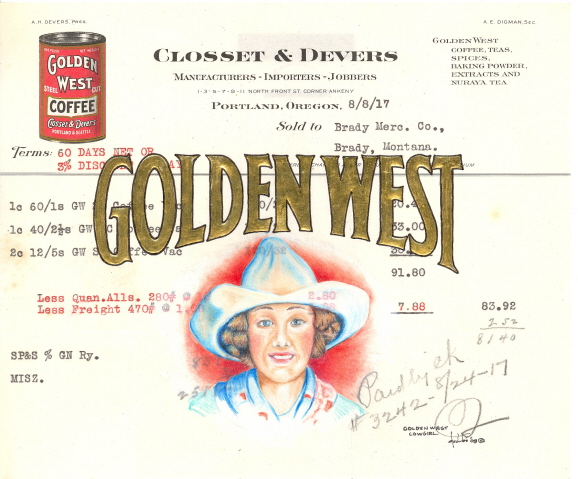
Some weeks back, it was suggested that I post a picture of what I'm doing with the sign artist skills that I developed over forty years ago. This was a recent piece of paper that I acquired through a friend from an Antique Mall. I don't like exploring malls for my old paper because I have to pay the price as listed for any piece that I buy. Most brick & mortar dealers in old paper are willing to offer some kind of a discount if you're buying more than one.
The idea here is that I'm looking for old paper that I can put my art work on. Just like the nature of the exhibit at the Huntington, I'm interested in the advertising art and packaging that existed in this country from the turn of the century into the early Forties. If the ad or package didn't sell the product, it didn't sell, so consequently, companies went out of their way to find artists willing to give them what they wanted - GOOD ART.
It's really sweet. It yields a good raise, can be applied with a brush, or thinned (with distilled water) and applied with a pen. I did the lettering in three passes with the PVA after letting each dry. I then used a paper straw (more about that in a minute) to breath on a couple of the letters at a time, and laid 23K Swift surface leaf. The reason for the paper straw was to eliminate the chance of drooling through the straw on the paper when I activated the size. A light burnish and putting the paper on a light table revealed some small areas that I needed to reapply the gold, but I simply did the reactivating size thing, and relaid the gold where I needed it.
So - Closset & Devers was a Portland firm that sold coffee, tea and spices, and their coffee was packed either in cans or jars. The jar labels were stone litho, and the cowgirl exists in a couple of different varieties, both with and without a steaming cup of coffee. The one I used for a model here was just a pretty, smiling face.
Golden West
- Golden West Cowgirl